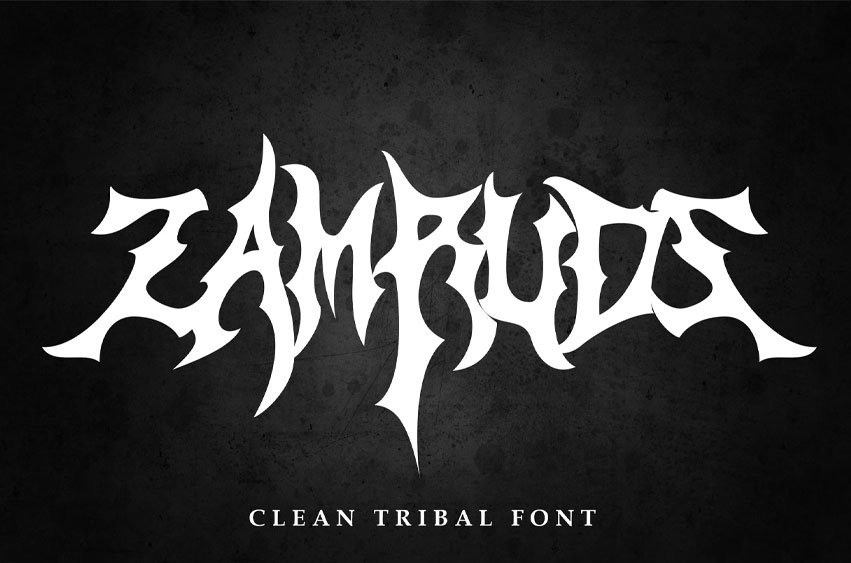
Zamruds Font
Zamruds Font is inspired by deathmetal logo and tribal style.
Of course, this font is very suitable for you that like deathmetal music, design, your clothing, logo, and many others.